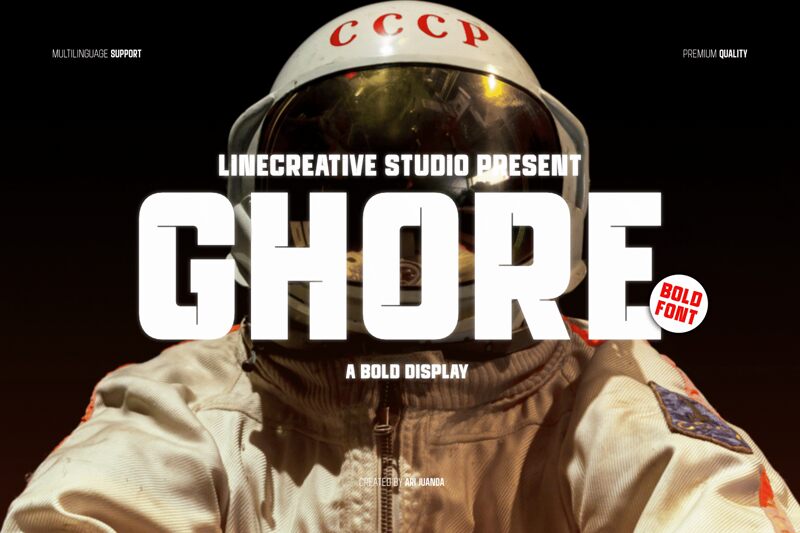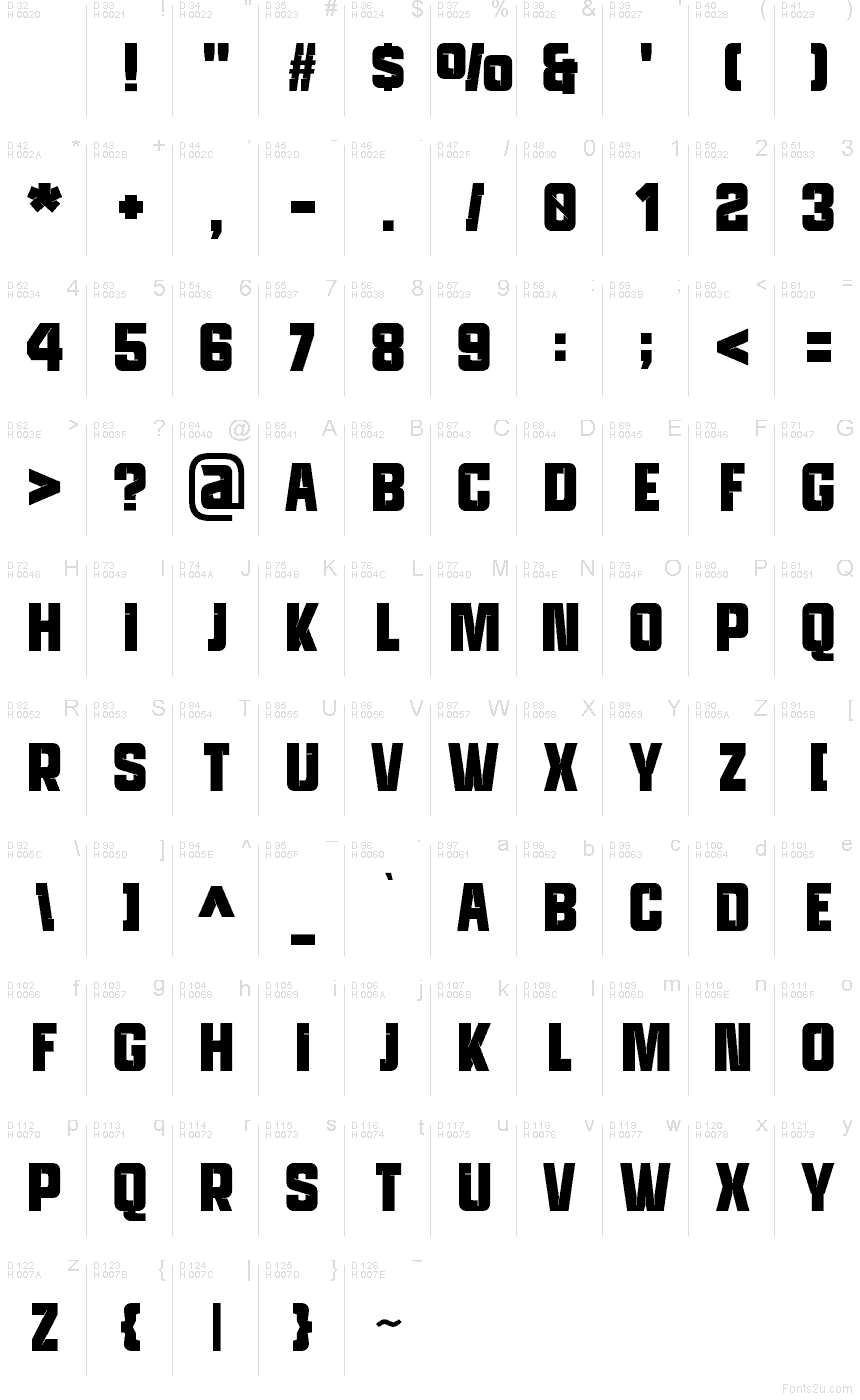
Ghore by Arijuanda is a free futuristic display font with hulking caps, squared curves, and hard rectangular cut-ins that make the letters feel machined rather than drawn. The repeated notch-like interruptions and blocky, almost modular silhouette give the font a blunt sci-fi tone that leans more industrial interface than sleek space age.
It fits posters, game logos, title cards, music cover lines, and tech event branding where short words need that heavy, engineered attitude. As a free font, Ghore also works for monograms and big headline treatments, because the caps hold together as bold shapes even before you start reading them.